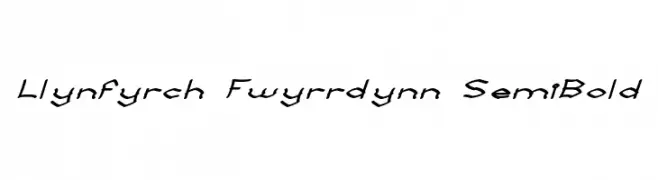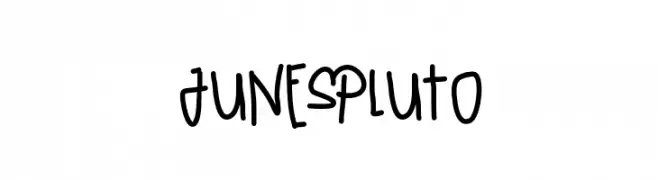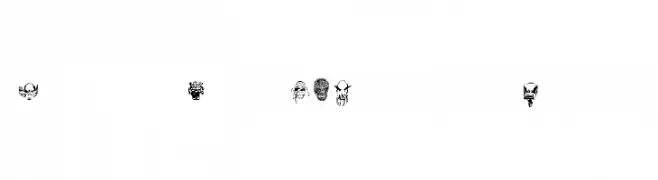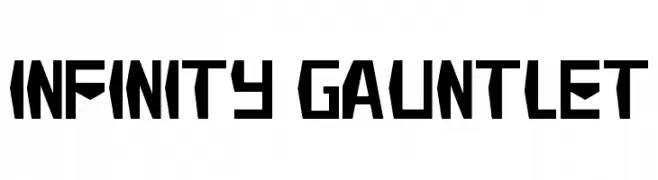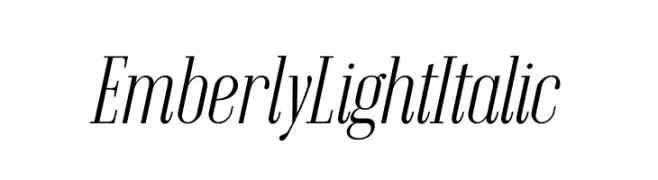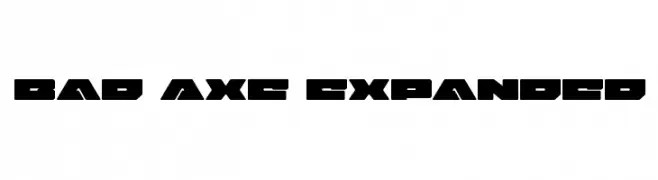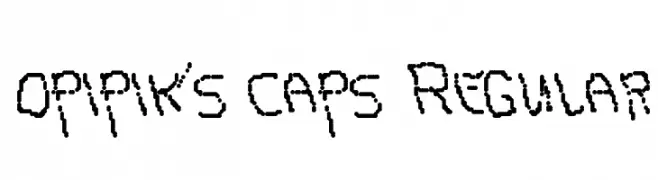
( Fonts by Graham Meade - GemFonts )
A lively, handwritten script font with a dynamic and fluid style.
A playful handwritten font with bold strokes and medium contrast.
( Fonts by joorgemoron )
A creative set of monster-themed dingbats with detailed and varied designs.
( Matt Bruinooge )
A pixelated, retro-style font with a digital, blocky design.
A bold, expressive handwritten font with textured strokes.
A bold, angular font with a futuristic and geometric design.
A refined, light, and italic serif font with medium contrast and elegant serifs.
A bold, geometric font with sharp, angular characters.